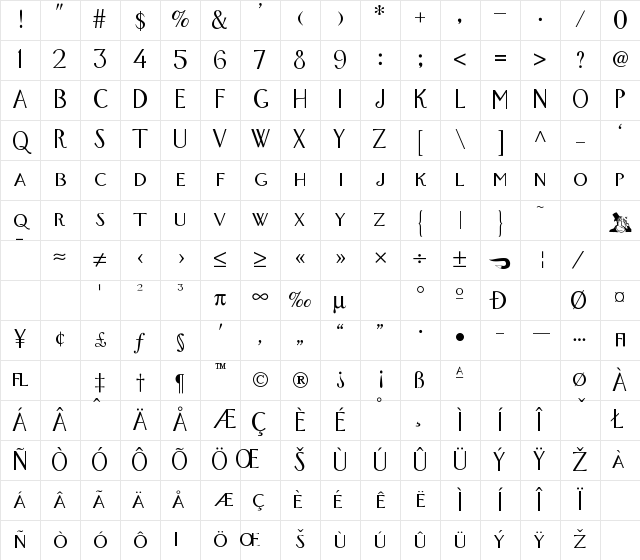
FoxTrot Normal Free Font
FoxTrot Normal
Design Context for FoxTrot
FoxTrot is a composed and adaptable typeface that performs quietly and consistently across a wide range of design contexts.